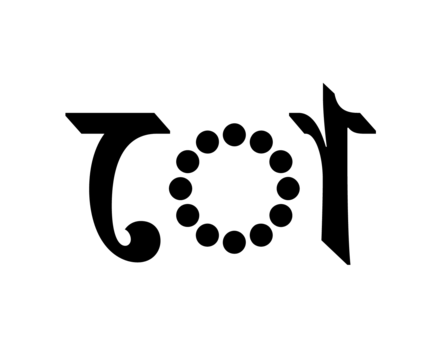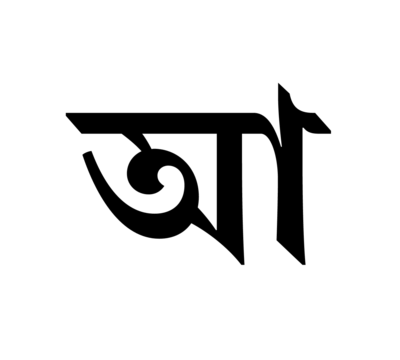
Tulika is a text typeface inspired by traditional Bengali calligraphy. It features distinctive, sinuous shapes and a high contrast between thick and thin strokes. Tulika is a set of Unicode fonts suitable for setting books, magazines, newspapers and any other material which can benefit from its five weights and high legibility at small point sizes.
| Family Name | Tulika Bengali |
| Designer(s) | Jyotish Sonowal |
| Classification | Serif |